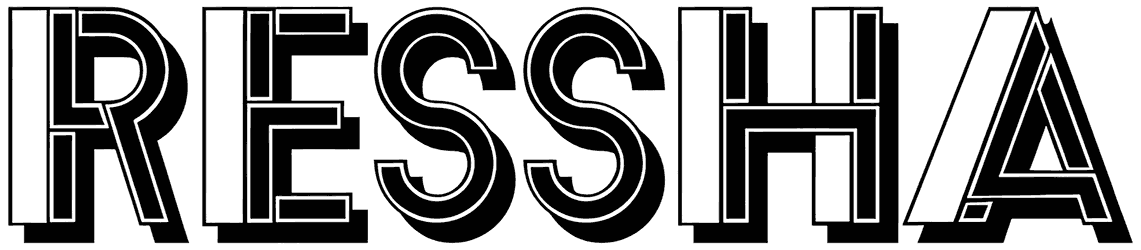
Honestly, you can’t suppose how much a retro font such as Ressha can help you to design valuable and magical graphic content including movie posters, video game brochures, product packaging, logos, or social media posts.
The good news about this all-caps two-tone font is that it comes in three distinctive styles and widens your selection range. Needless to say that this masterpiece carries a feeling of eerie, exotic, fierce, and dynamic.